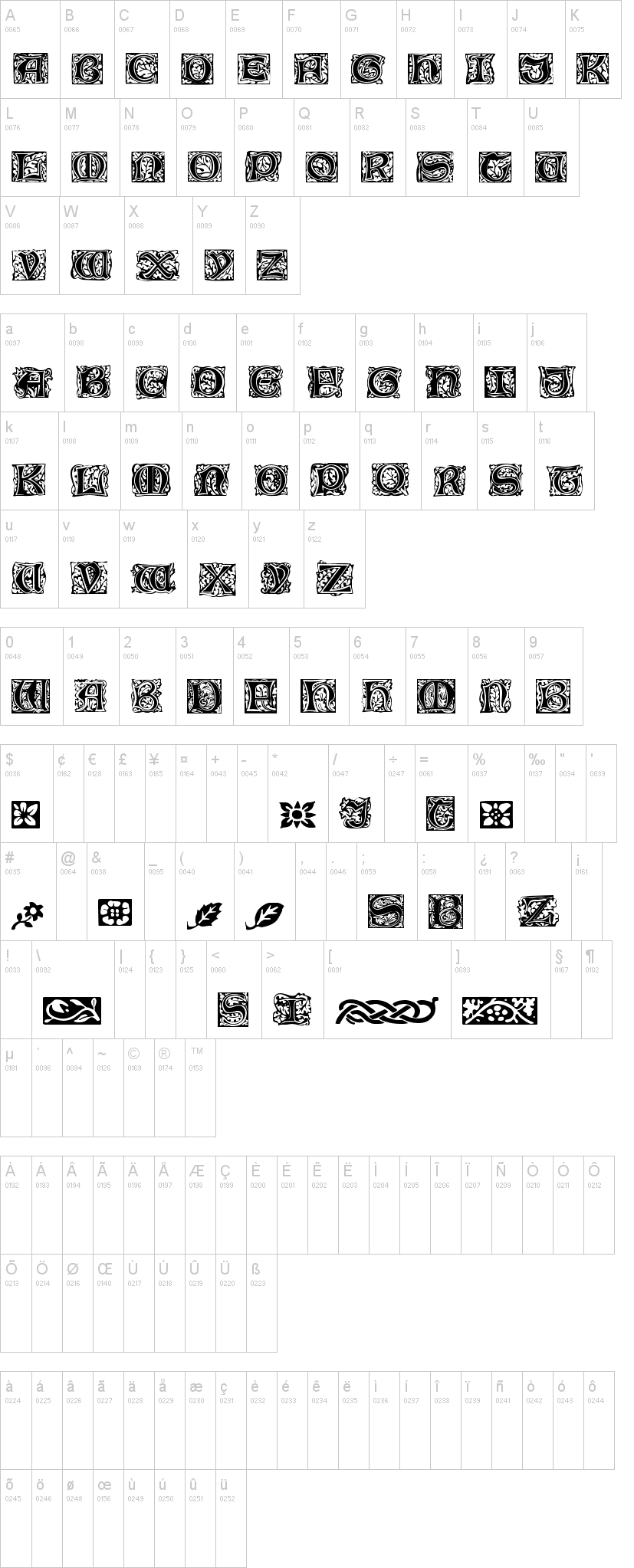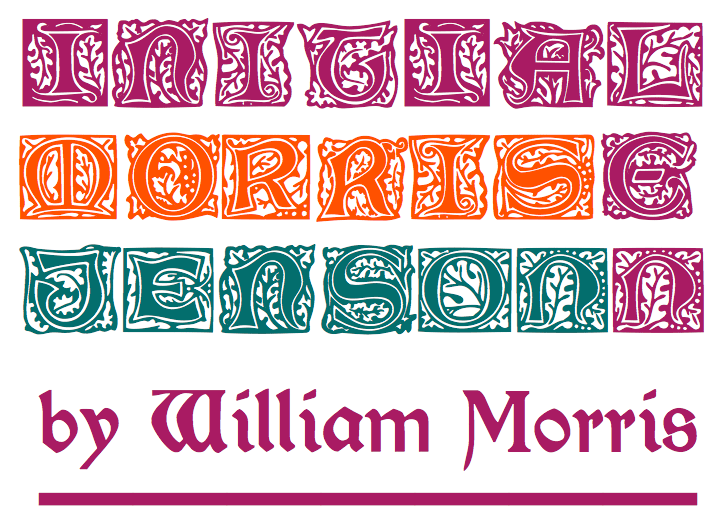
Note of the authorMorris Jenson Initialen is an initials font that contains many of William Morris' (1834-1896) famous initial letters of his Kelmscott Press. To my knowledge the upper case (A-Z) key initials were never digitised before, note the unusual letter E. I scanned them from a font specimen sheet. The lower case (a-z) key initials are well known. There are also ornaments and more initials variations among other keys of the font. This is to date the most complete collection of Morris' Jenson Initials. This font is public domain, free for all uses, commercial and private.